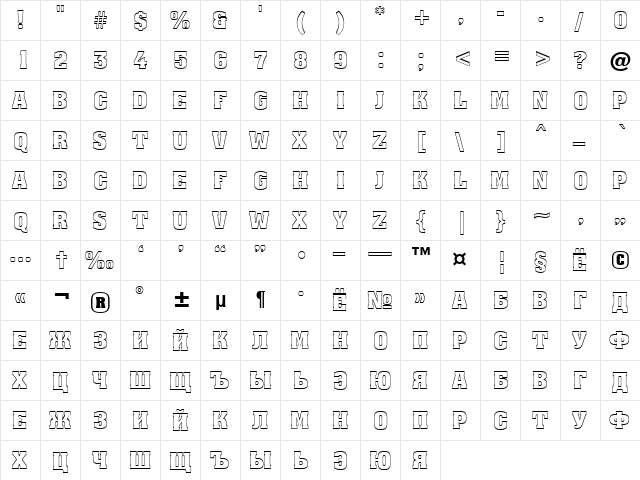
a_AssuanTitul3DUp Bold Font Preview
a_AssuanTitul3DUp Bold
Design Context for a_AssuanTitul3DUp Typeface
a_AssuanTitul3DUp takes a measured approach to typography — its balanced proportions and neutral character make it a reliable workhorse for both digital and print work. The heavy weight commands attention and anchors typographic hierarchies.